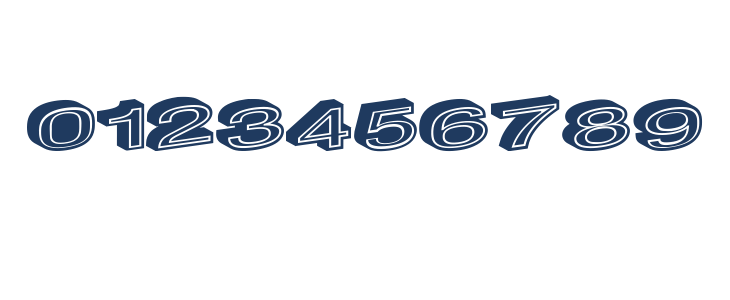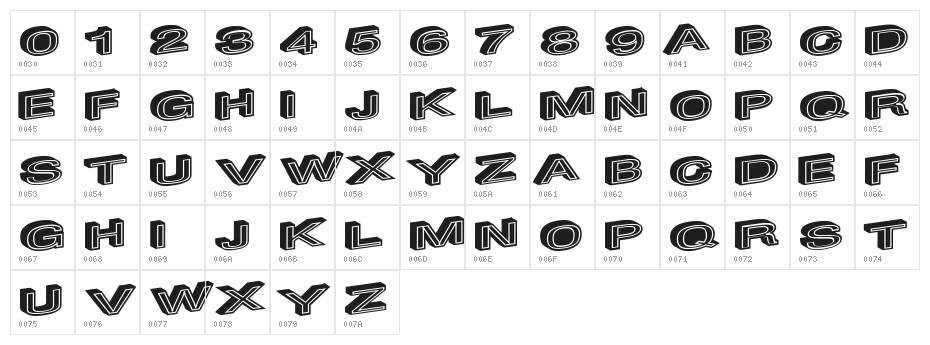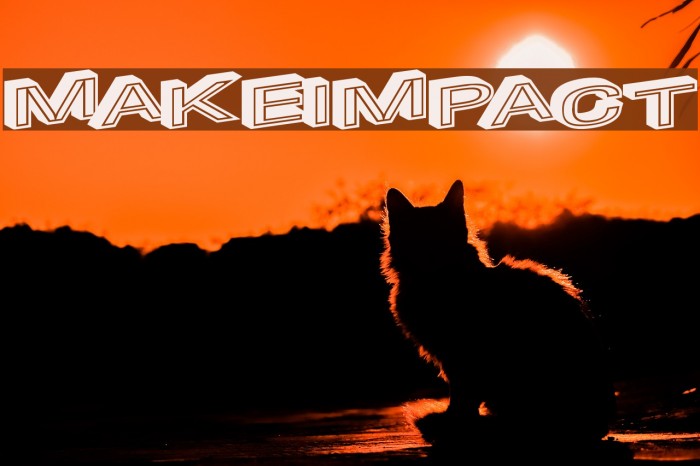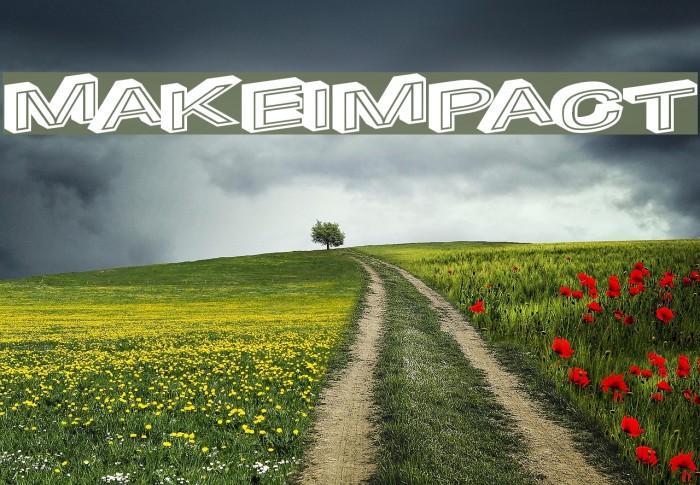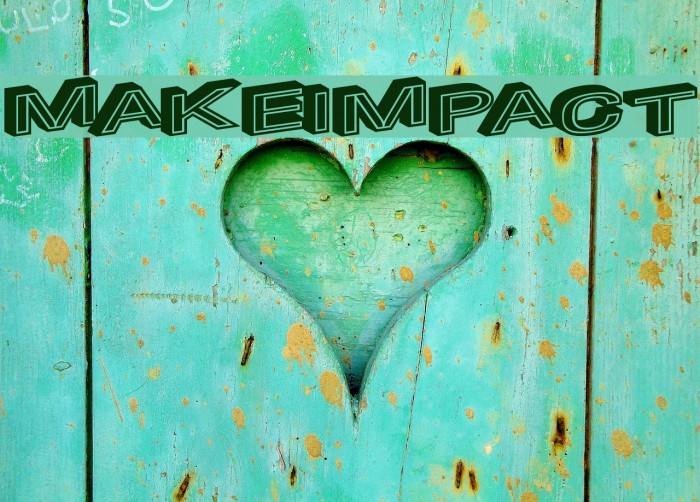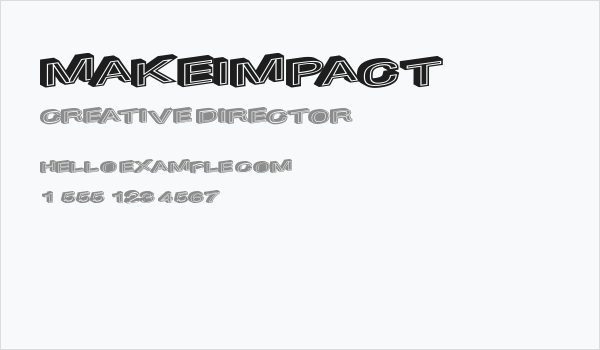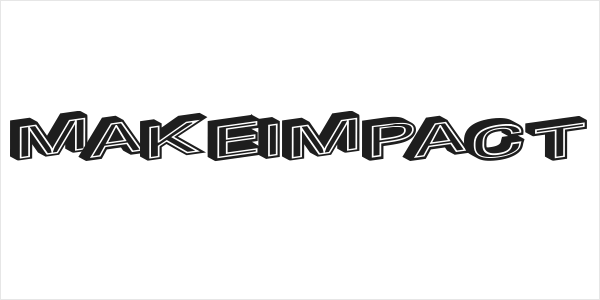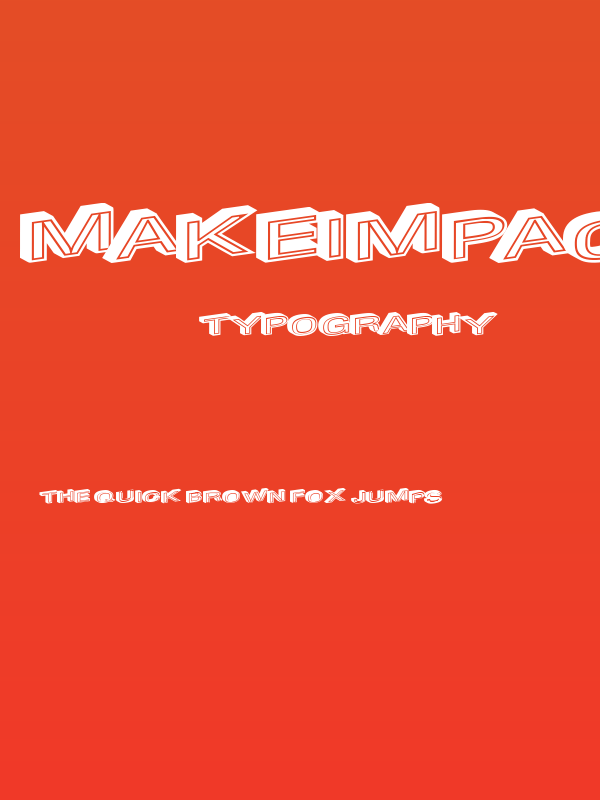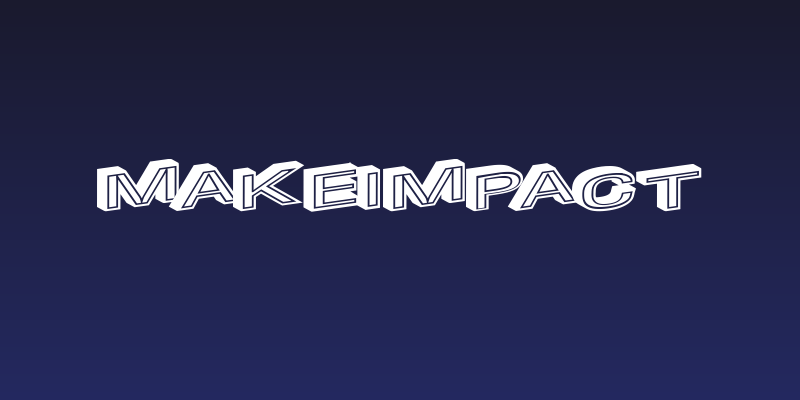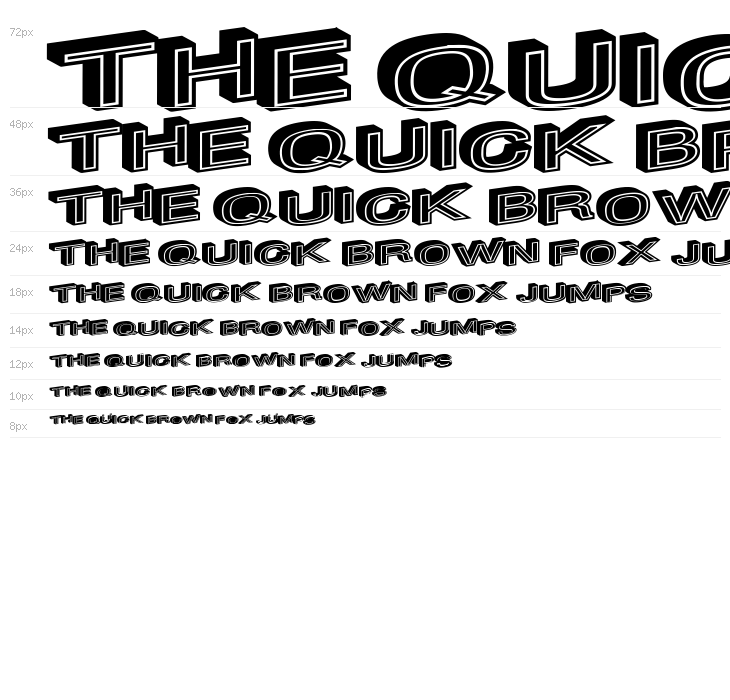
MakeImpact Font
MakeImpact Description
This font features a bold, three-dimensional design with a strong outline that gives it a striking, impactful appearance. The letters are uppercase and have a shadow effect that creates a sense of depth and movement. The style is reminiscent of retro or vintage signage, making it ideal for projects that require a bold statement. The characters are evenly spaced, ensuring readability despite the complex design. The numbers follow the same style, maintaining consistency across the font set. This font is perfect for creating eye-catching headlines, posters, or branding materials that need to stand out.
| Overall Style | Vintage |
| Use Case | Headlines, Posters, Branding |
| Proposed Projects | Ideal for posters, headlines, branding, and any design needing a bold, vintage touch. |